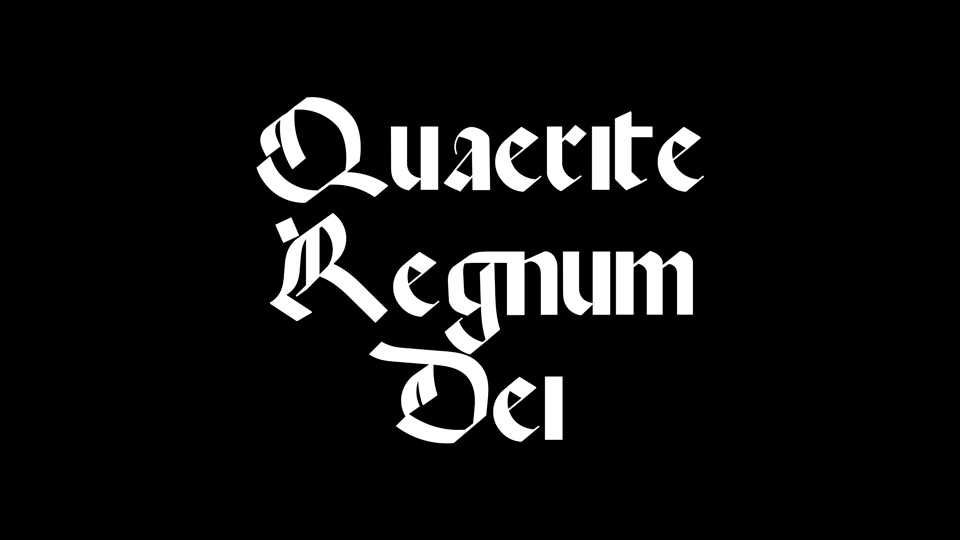
Download Quaerite Regnum Dei font, a calligaphic style font based on a beautiful medeival Spanish rotunda (16th century) hand found in the Misal rico de Cisneros .
Designer: Fredrick Brennan